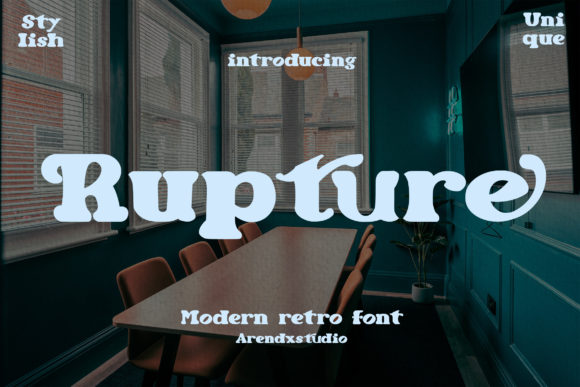
Behold, the Rupture Font, a typographic masterpiece that masterfully weaves the essence of modernism and retro charm into a single, captivating digital creation. This font, hailing from the creative hands of Arendxstudio, is a visual symphony that beckons you to explore the boundless realms of creative expression.
At its core, Rupture is a display font, designed to command attention and elevate your designs to new heights. Its meticulously crafted characters exude a sense of sophistication and style, making it the perfect choice for business websites, branding projects, and any creative endeavor that demands a touch of elegance and distinction.
But Rupture is more than just a pretty face. It's a font engineered for versatility, effortlessly adapting to a wide range of design styles and applications. Whether you're crafting sleek and modern logos, eye-catching marketing materials, or simply adding a touch of personality to your social media posts, Rupture will rise to the occasion, delivering stunning results every time.
The beauty of Rupture lies in its details. Each character has been meticulously designed and refined, resulting in a font that is both visually appealing and highly functional. The carefully balanced strokes, the elegant curves, and the subtle nuances of each letterform come together to create a font that is both timeless and contemporary.
But what truly sets Rupture apart is its PUA encoding, a feature that grants you effortless access to a world of glyphs and swashes. With just a few clicks, you can unleash a treasure trove of alternate characters, ornaments, and stylistic variations, empowering you to add depth, texture, and visual interest to your designs.
Imagine the possibilities: crafting logos with intricately detailed letterforms, adorning your website with captivating headlines that dance before the eyes, or creating social media graphics that burst with personality and flair. Rupture is your creative companion, ready to transform your ideas into visual masterpieces.
So, embrace the power of Rupture Font and embark on a creative journey like no other. Let your imagination run wild as you explore the endless possibilities that await you within this digital treasure chest of typographic artistry. The world of design is your canvas, and Rupture is your brush, poised to paint a masterpiece that will leave your audience spellbound.